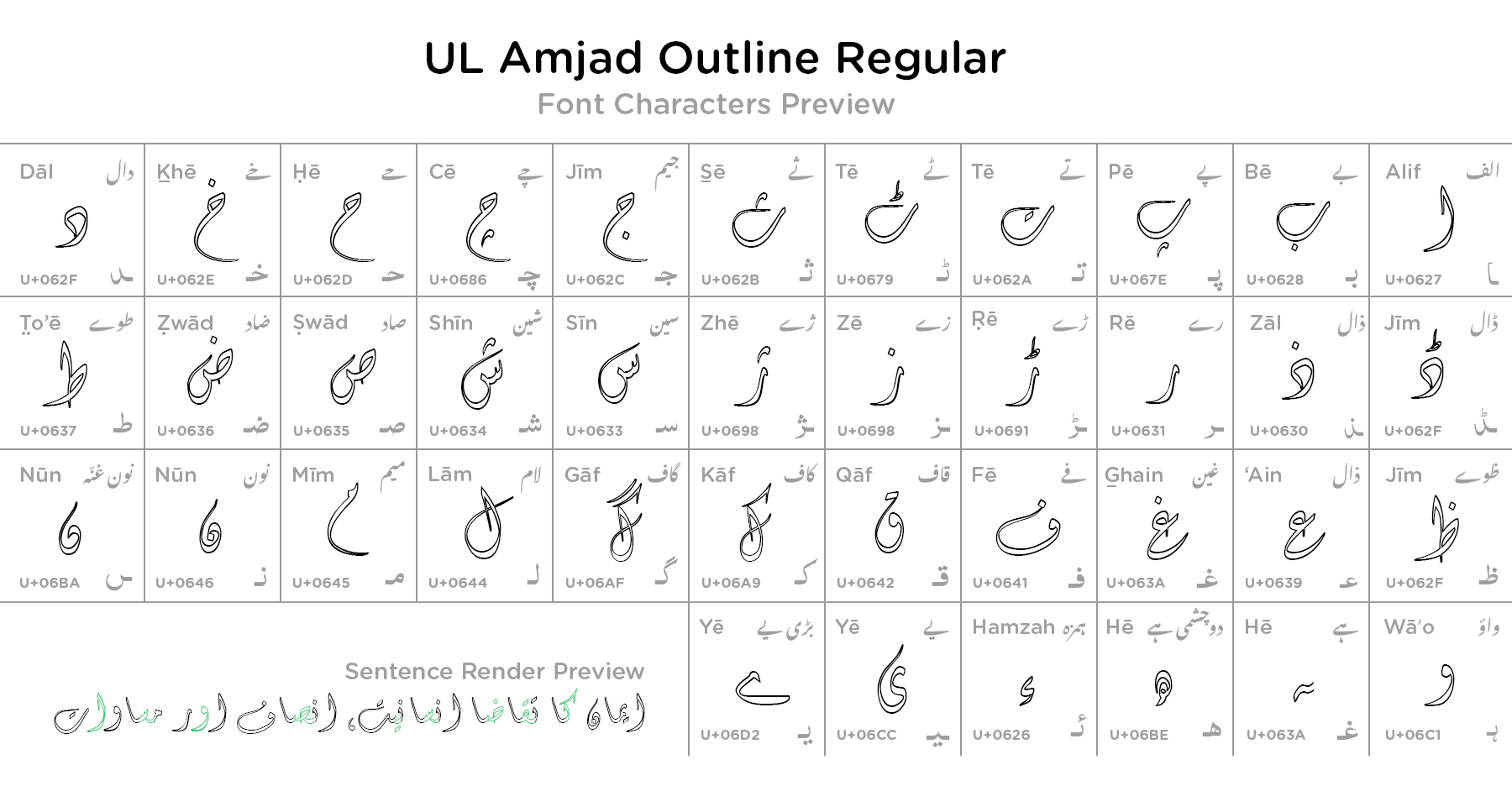
UL Amjad is a modern hollow or stencil font that presents modernity and elegance. Inspired by the traditional Divani script, it includes modern influences to create flowing letterforms with thin cursive terminals. Released on October 10, 2017, under the trademark UL by Urdu Life, this font offers 400 characters and 395 glyphs; this font supports Arabic, Latin, and more. The font’s delicate strokes and hollow interior contribute to its unique appearance, making it ideal for short-text applications such as branding, advertising, logos, and creative posters. However, due to its decorative nature, it may pose challenges for prolonged reading, making it more suitable for eye-catching designs rather than extensive textual content. It comes in 3 different weights including: